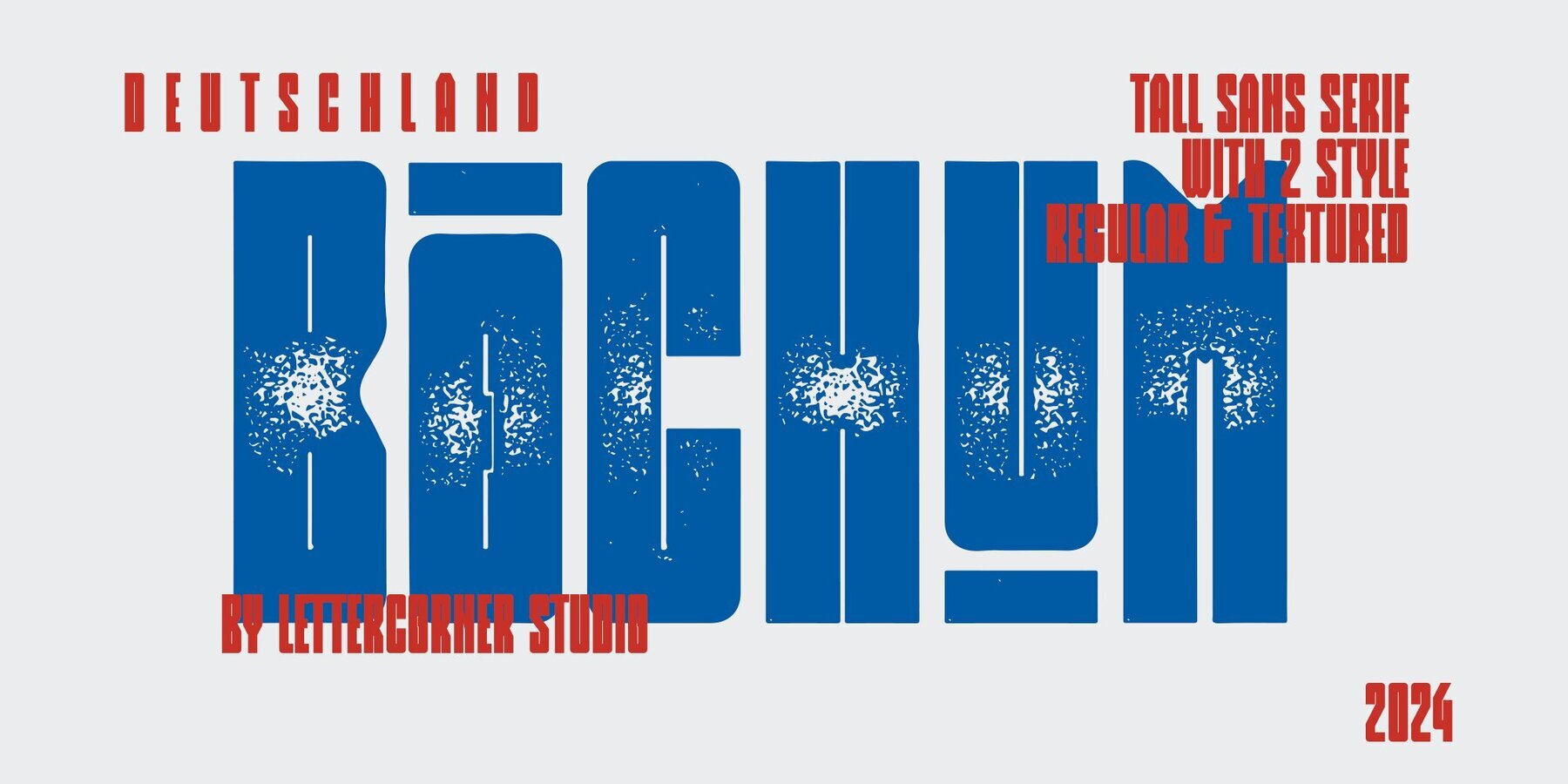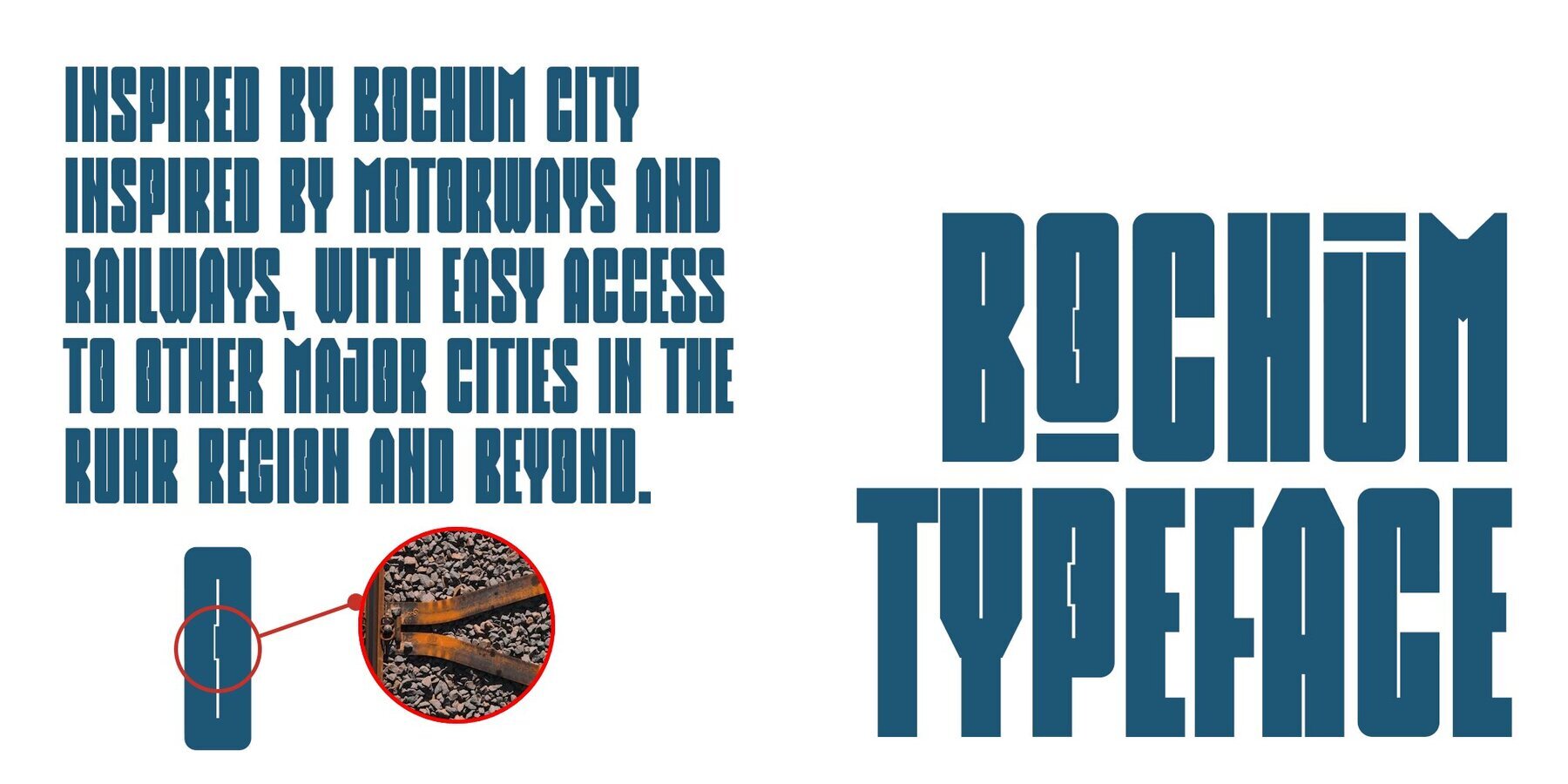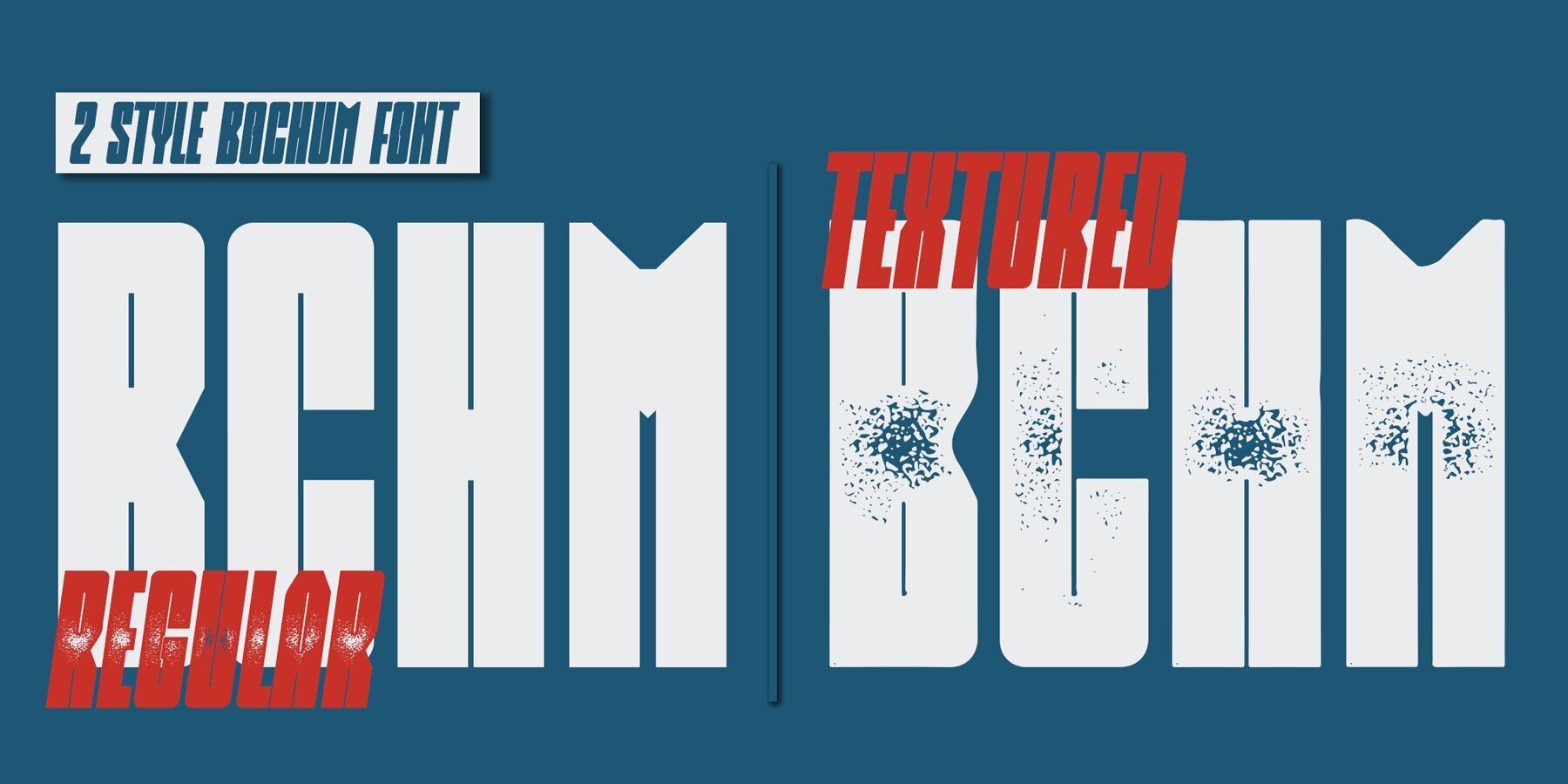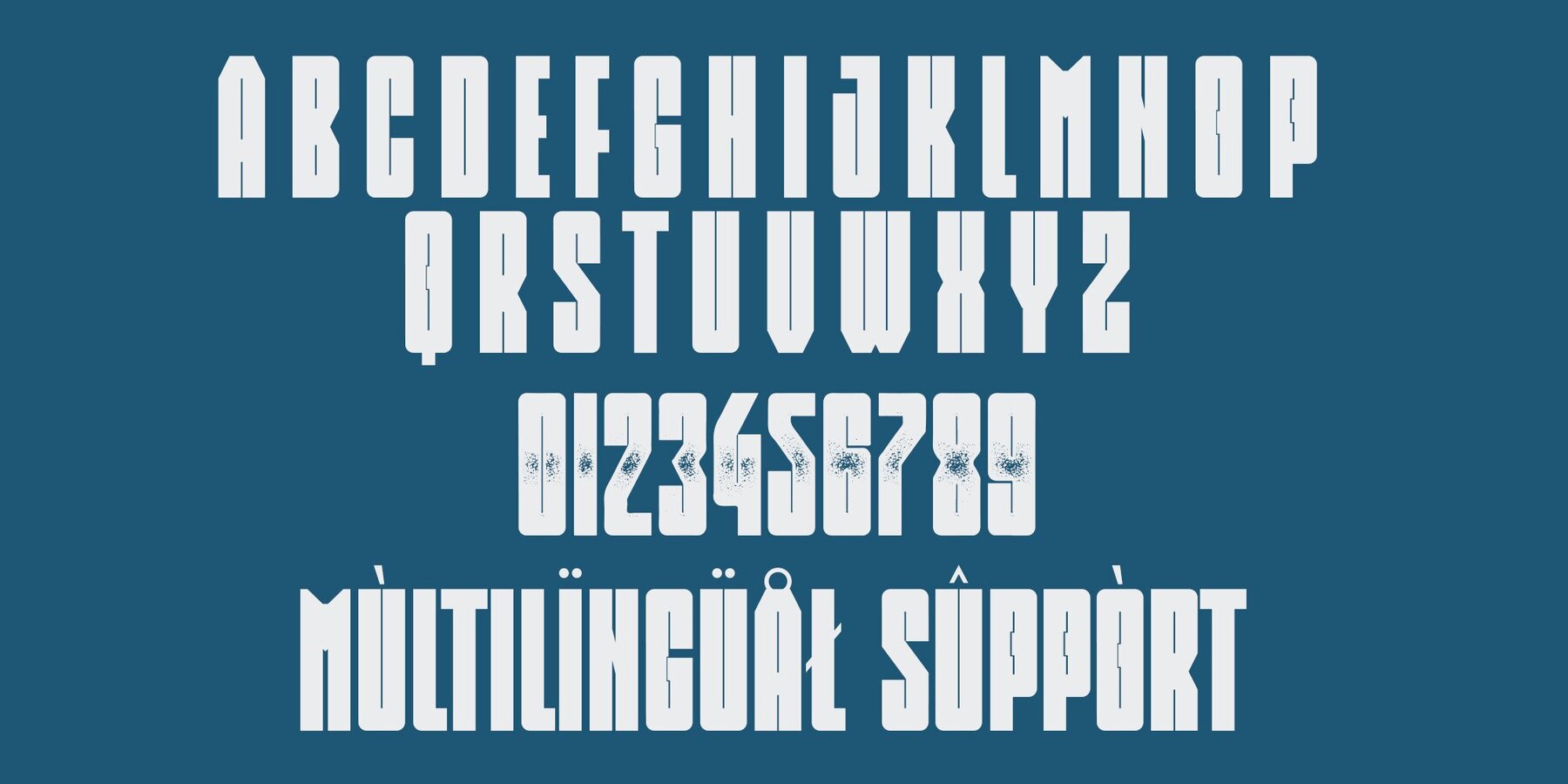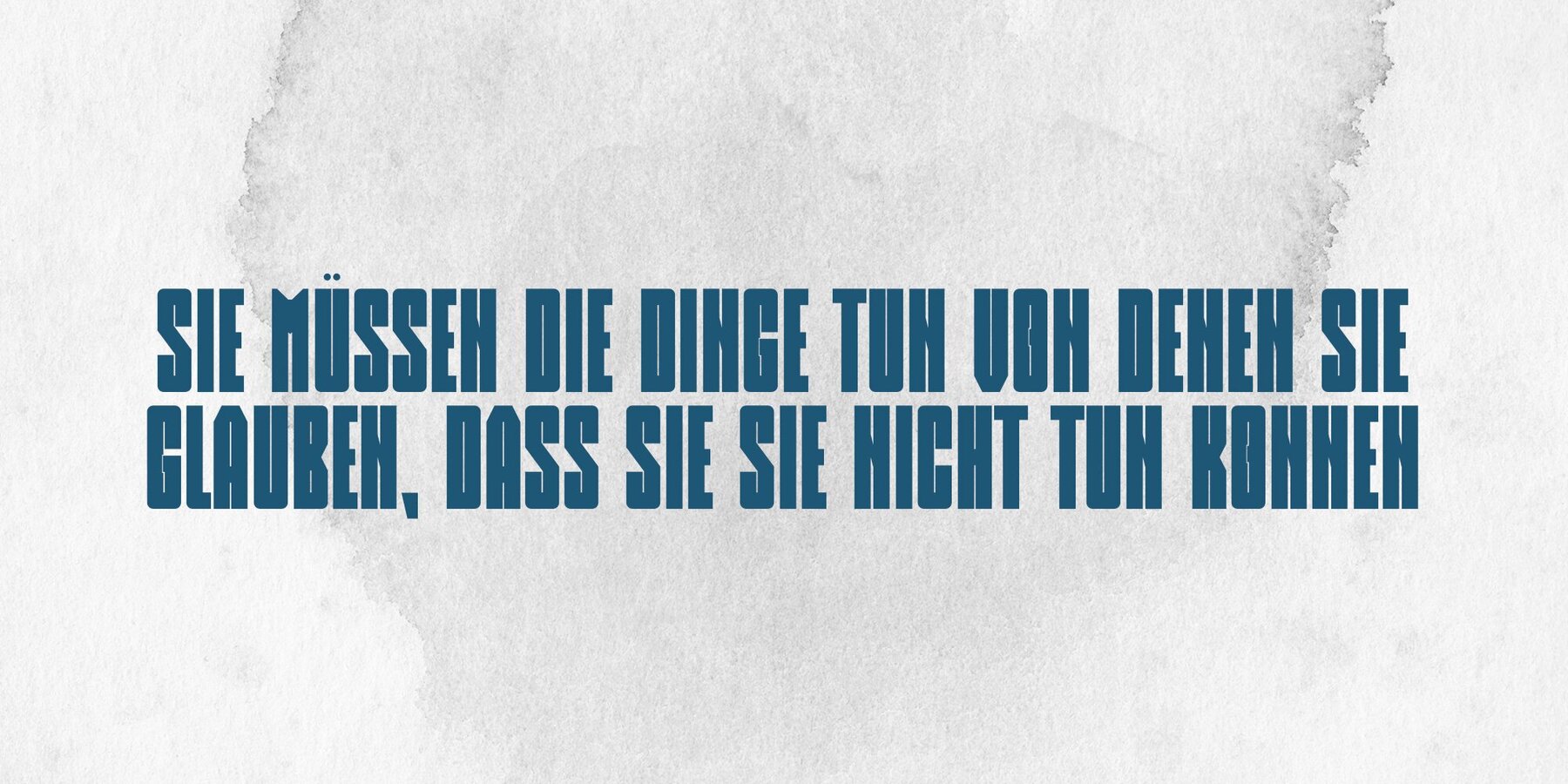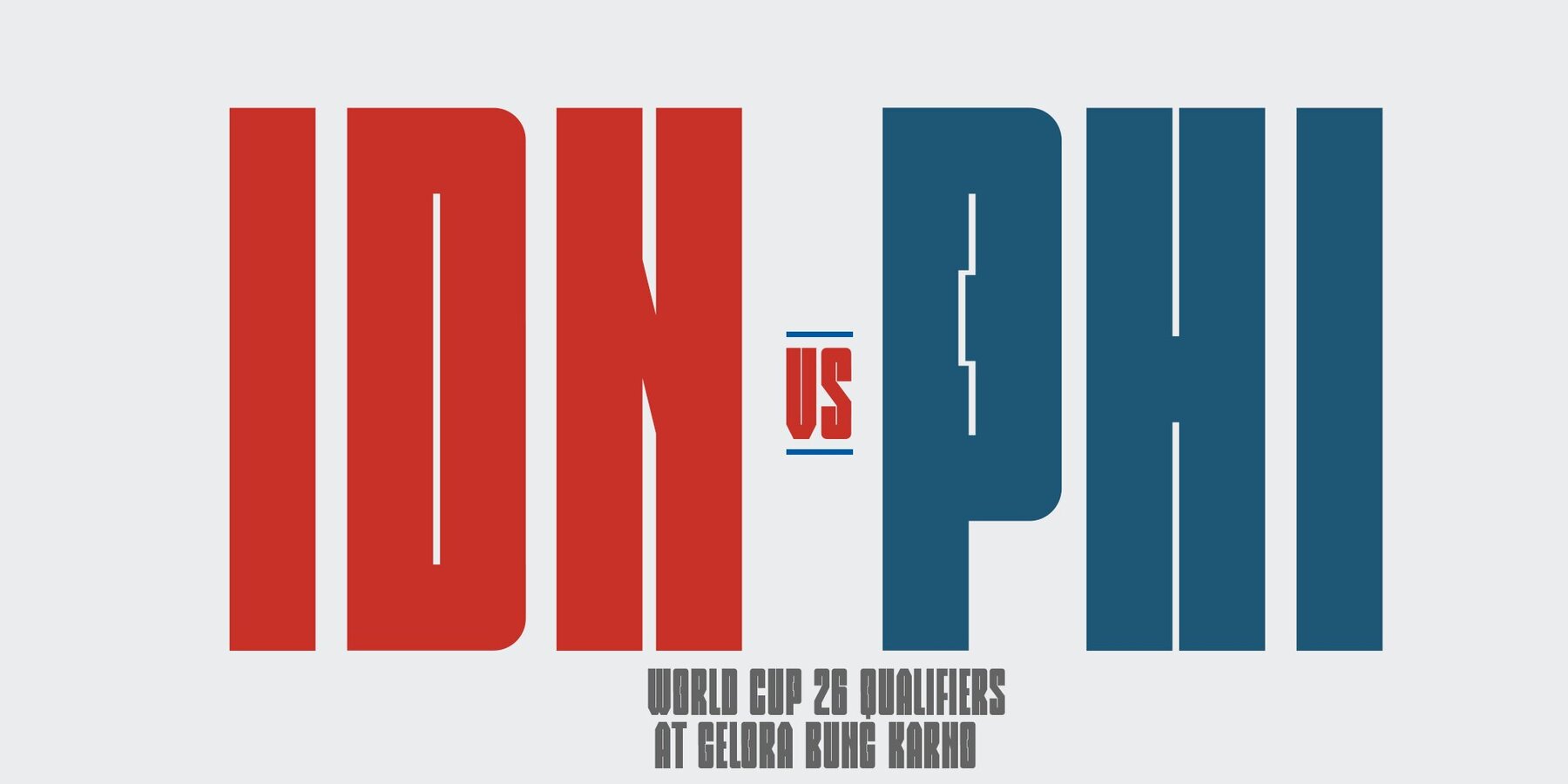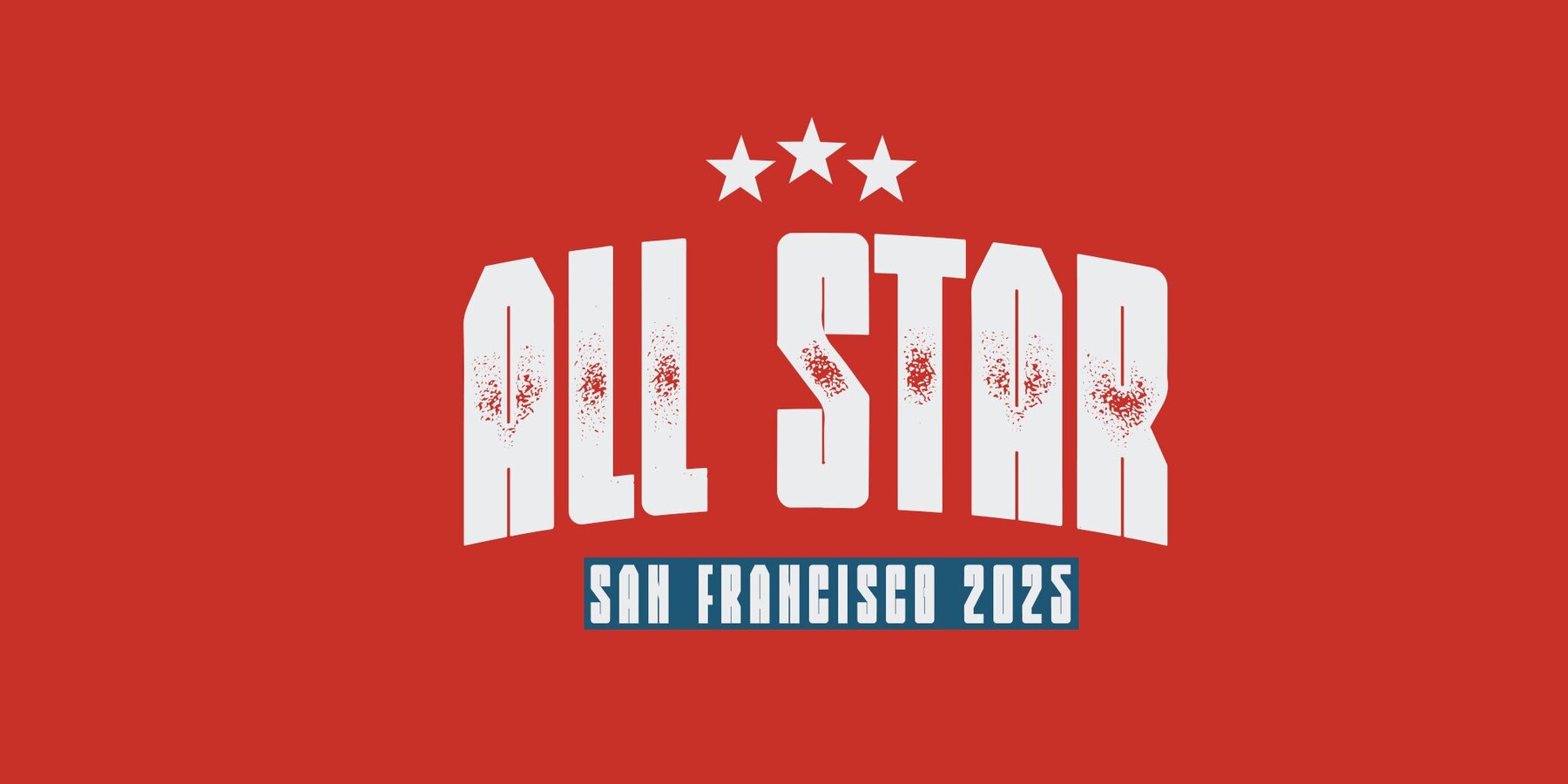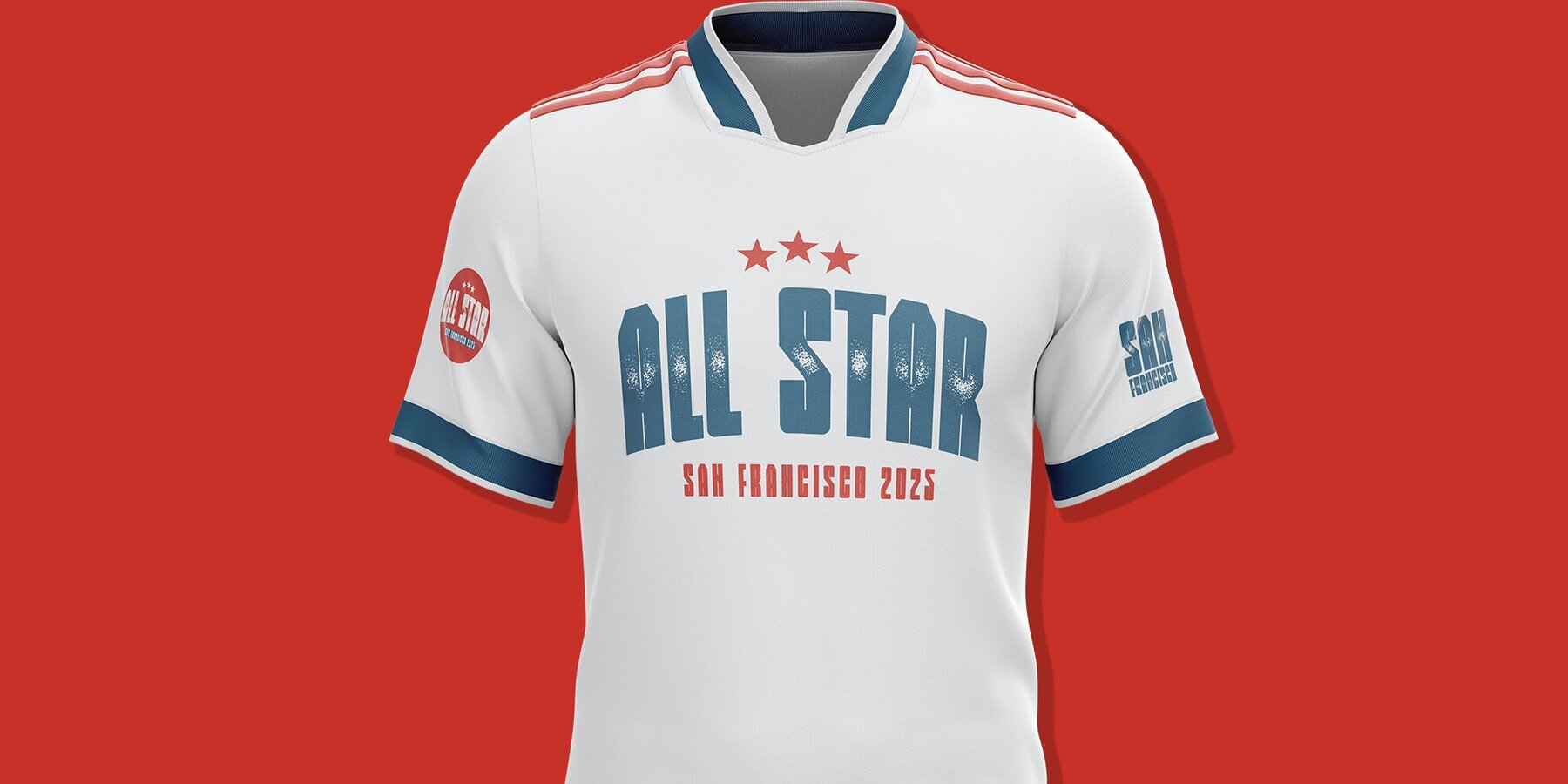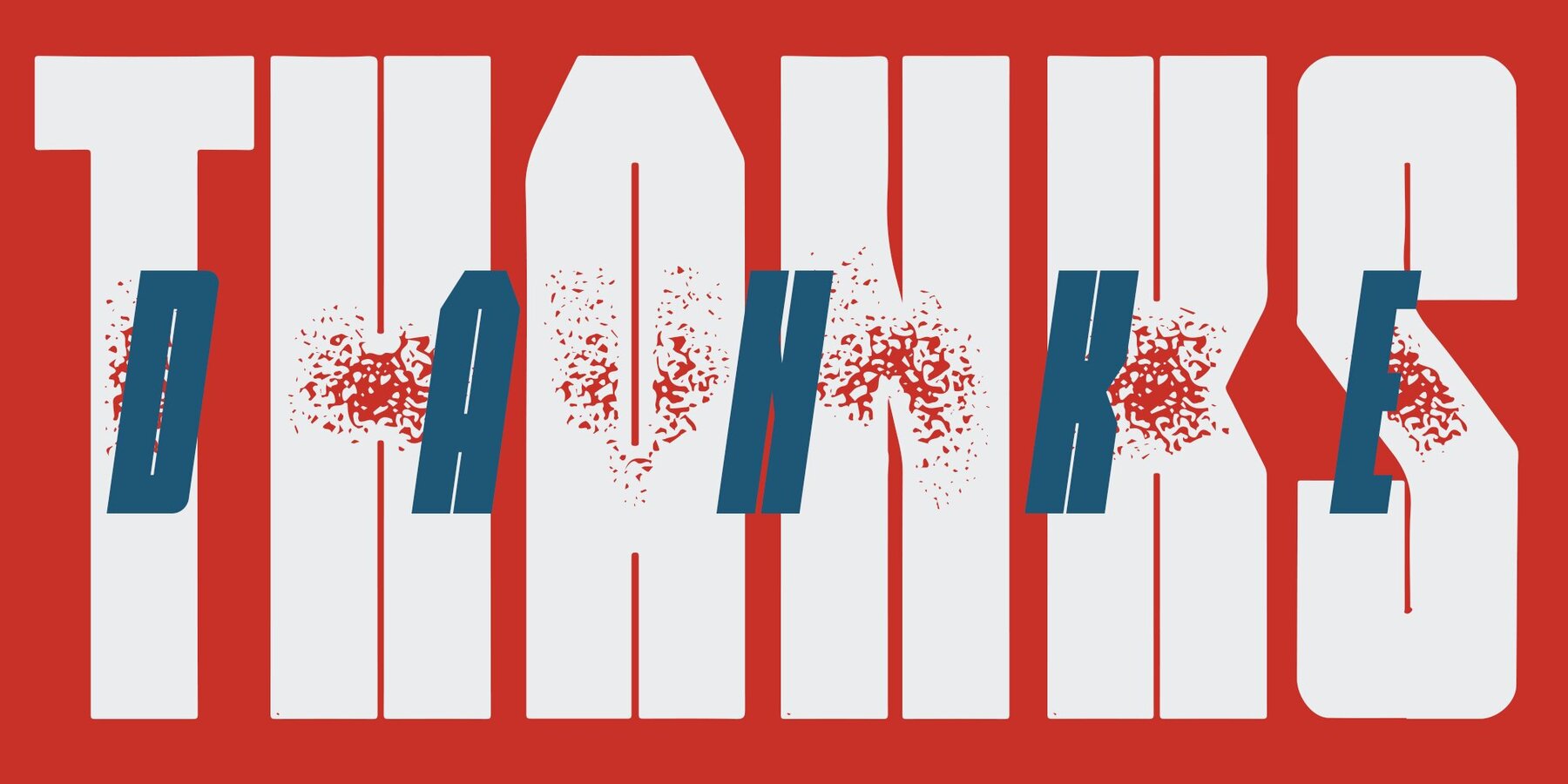
Bochum Font
Bochum is an extra-condensed font designed by Muhammad Afif Ersya. Available in two styles, Regular and Textured, this font is perfect for sports graphics, posters, editorial titles, and headlines. Its condensed nature allows you to create larger type in smaller spaces, making your next project stand out with impact.